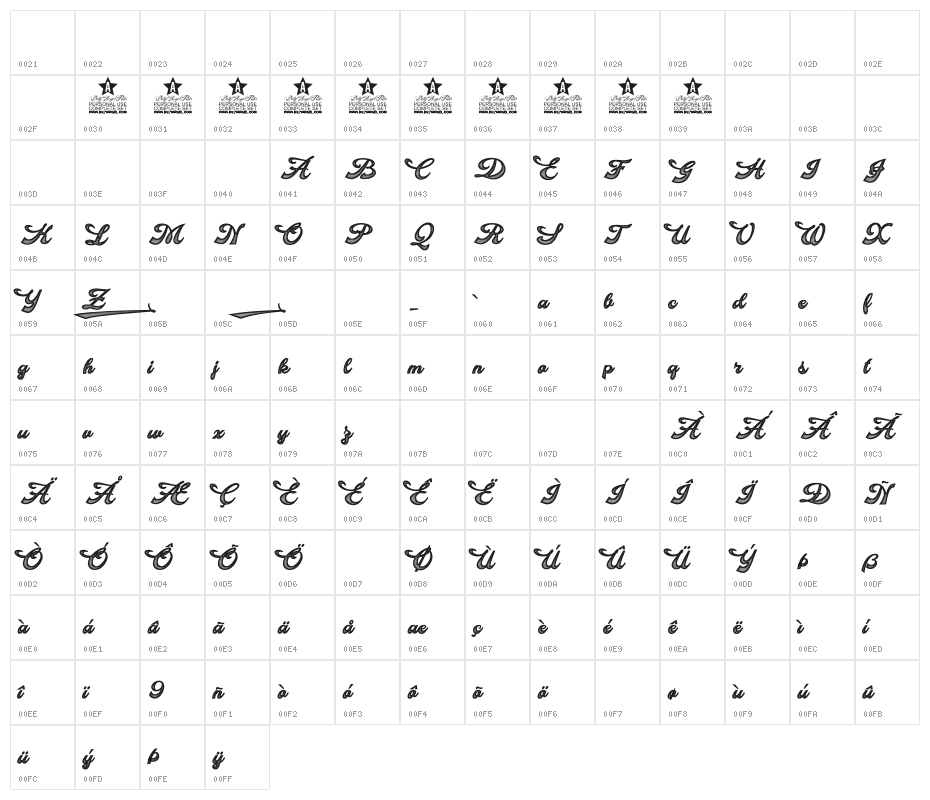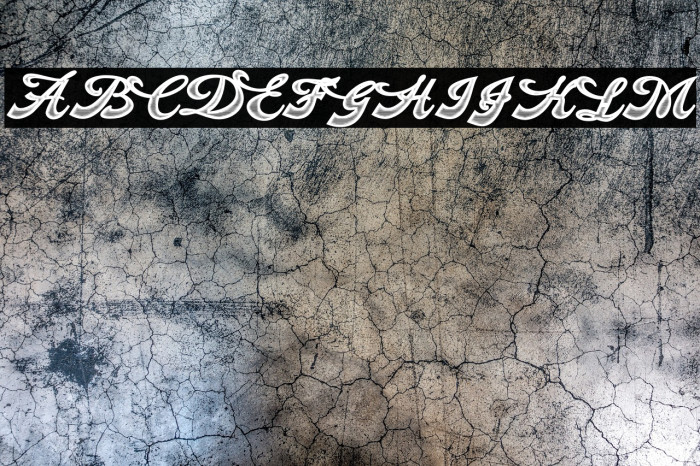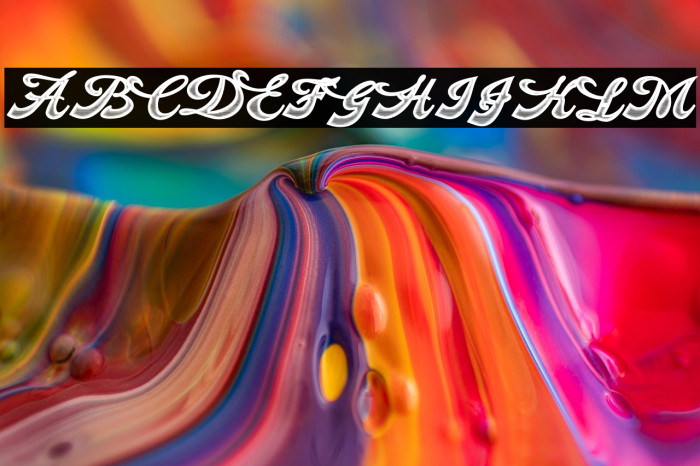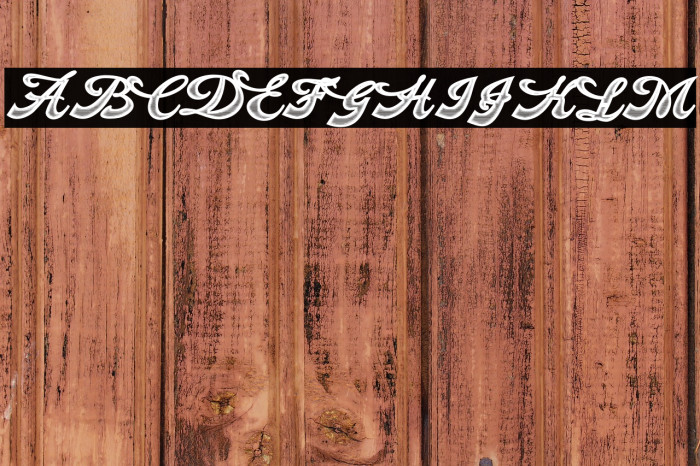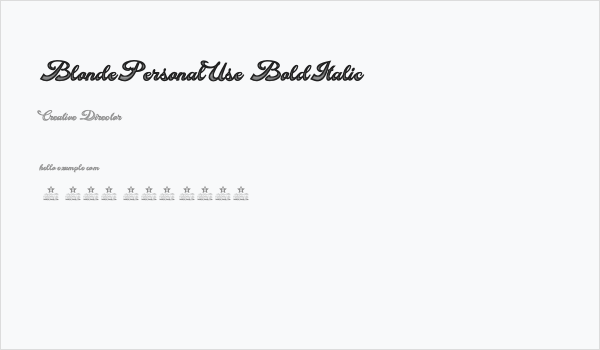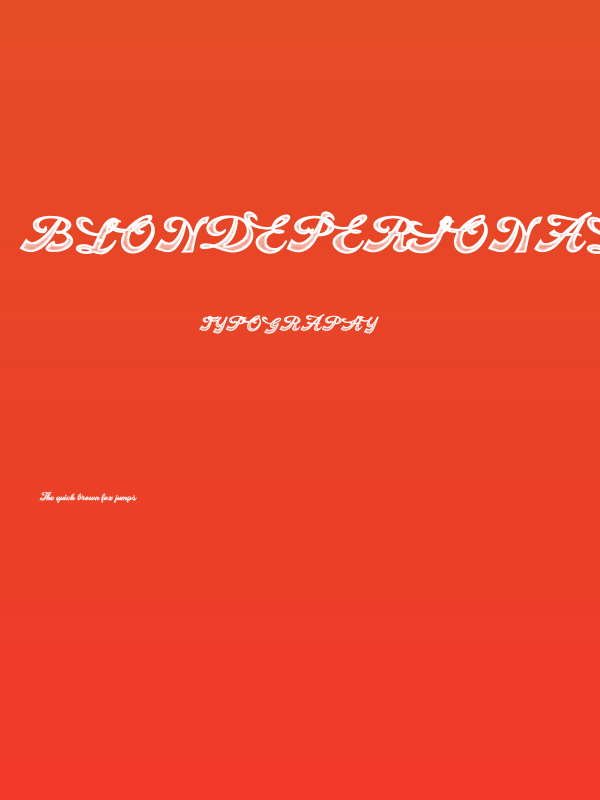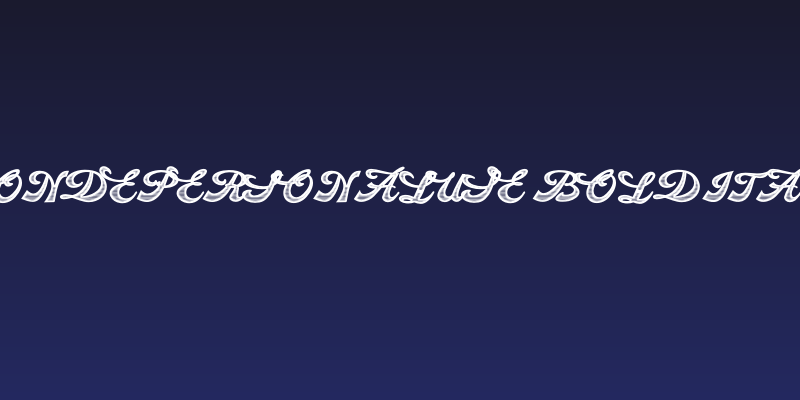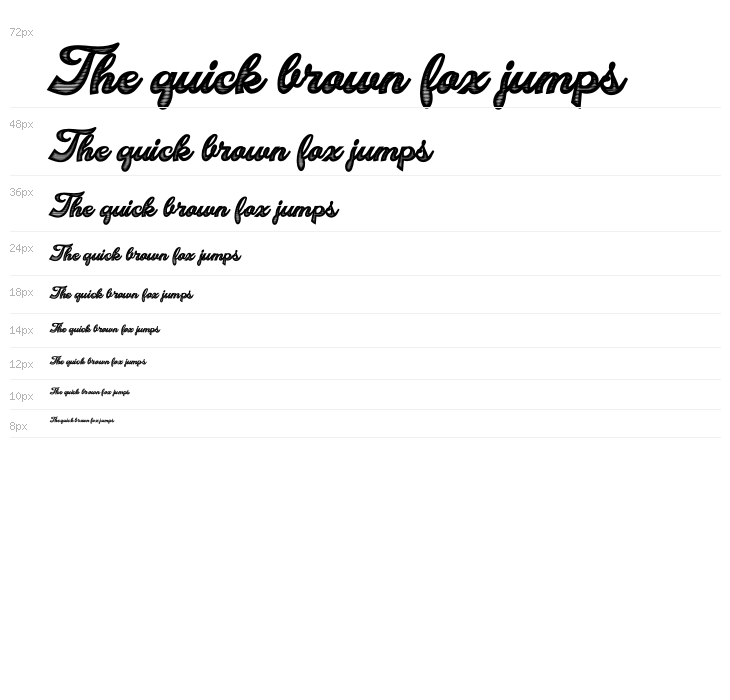
BlondePersonalUse-BoldItalic Font
BlondePersonalUse-BoldItalic Description
This font features a bold and italicized script style with a decorative flair. The characters are interconnected, creating a flowing and dynamic appearance. The strokes are thick, with a high contrast between the thick and thin parts, giving it a dramatic and eye-catching look. The uppercase letters are ornate, with flourishes that add elegance, while the lowercase letters maintain a consistent style, enhancing readability. The font's playful yet sophisticated design makes it suitable for creative projects that require a touch of personality.